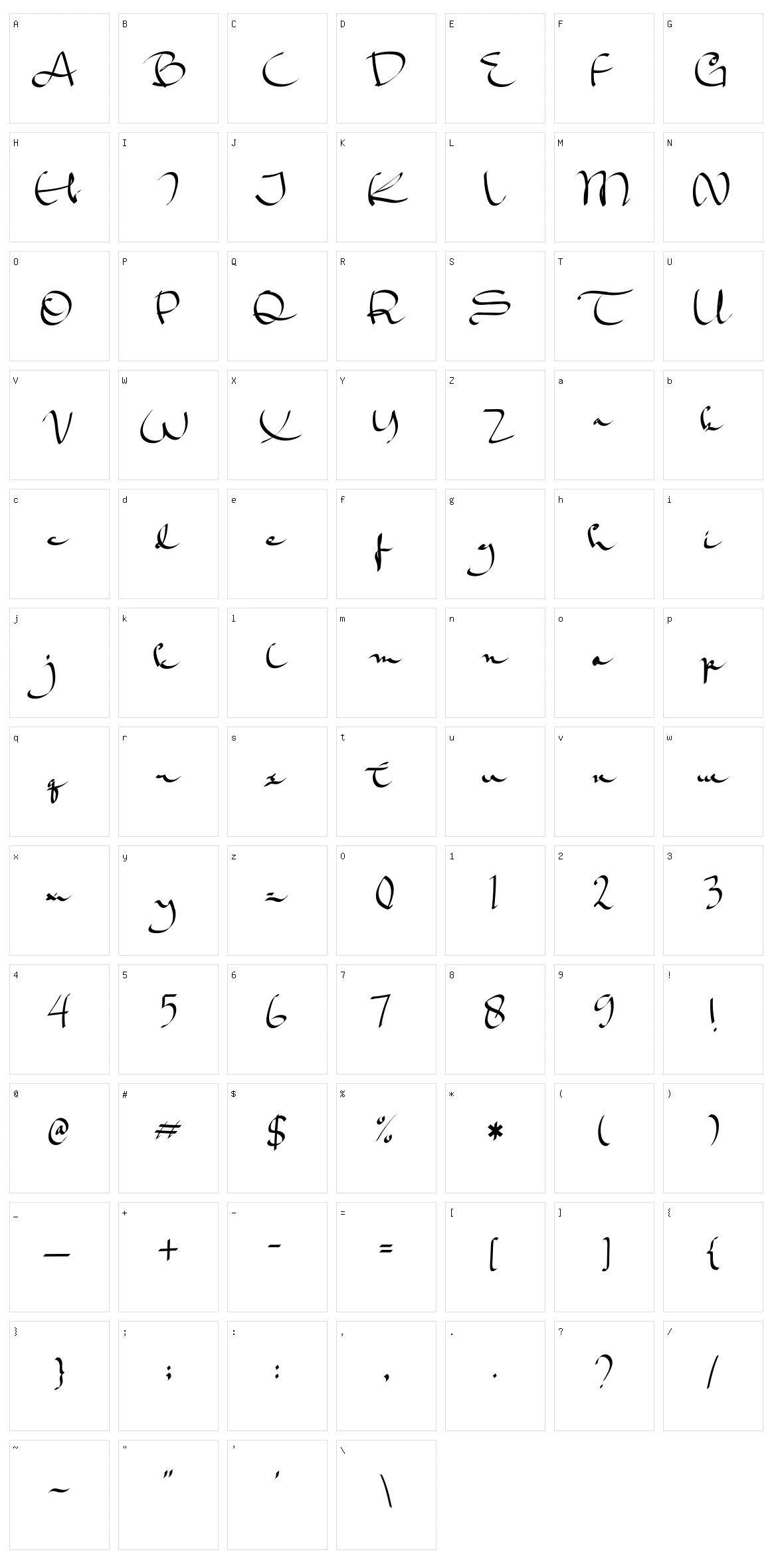
The free font Sketch Crafty is carefully designed by Namara Creative, showcasing a thoughtful balance of creativity and usability and falls under the Arabic font style. When you download the ZIP file, it contains only 27.09 KB of font files, making it lightweight and quick to download. Please review the license details below to understand permitted usage and distribution rights. If license information is not available, we recommend using this font for personal projects only or contacting the author directly for commercial usage permissions.
exotic calligraphy font with carefully made. It's the perfect choice for
personal branding projects, handwritten quotes, homeware designs, product packaging
or simply as a modern & stylish text overlay to any background image.